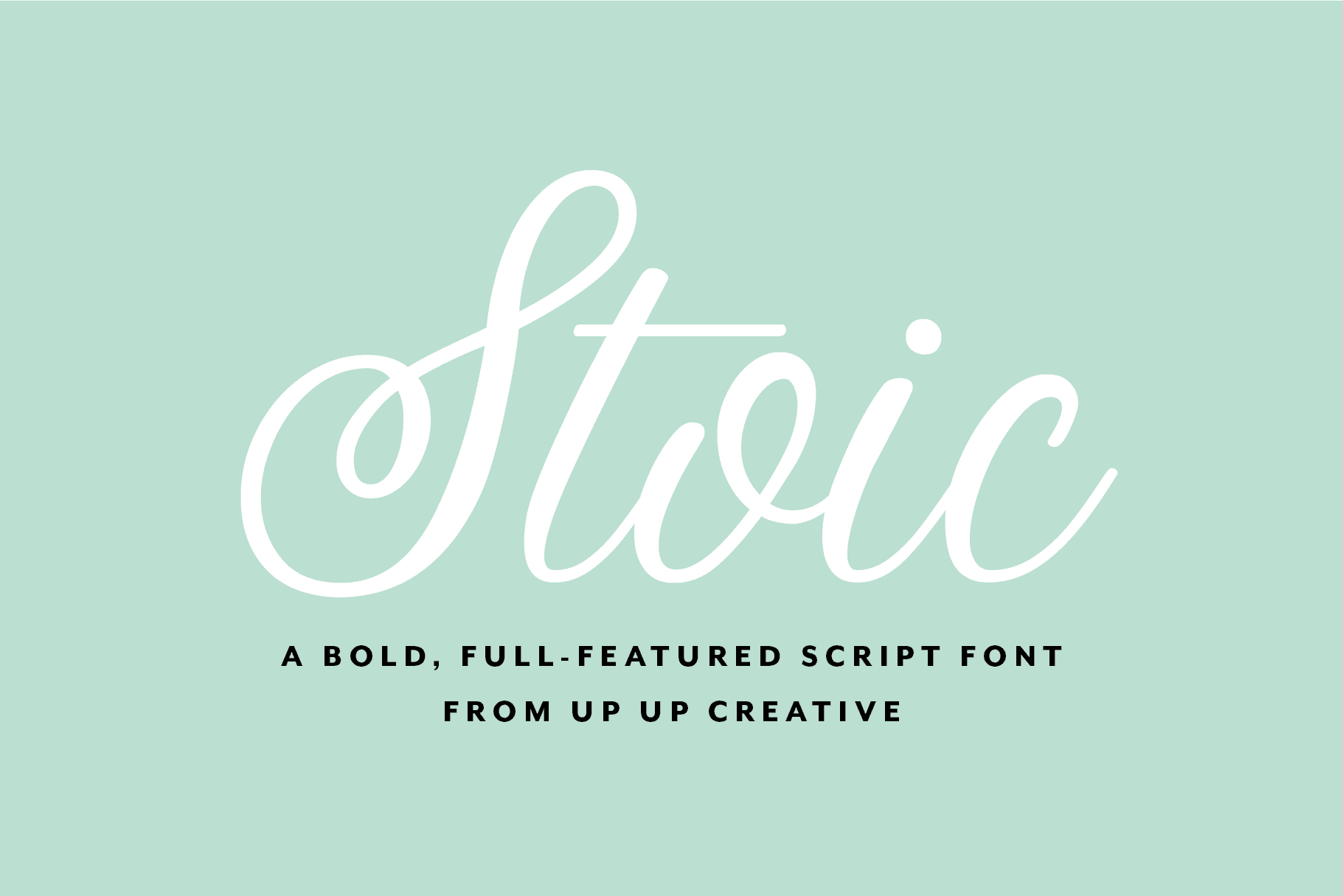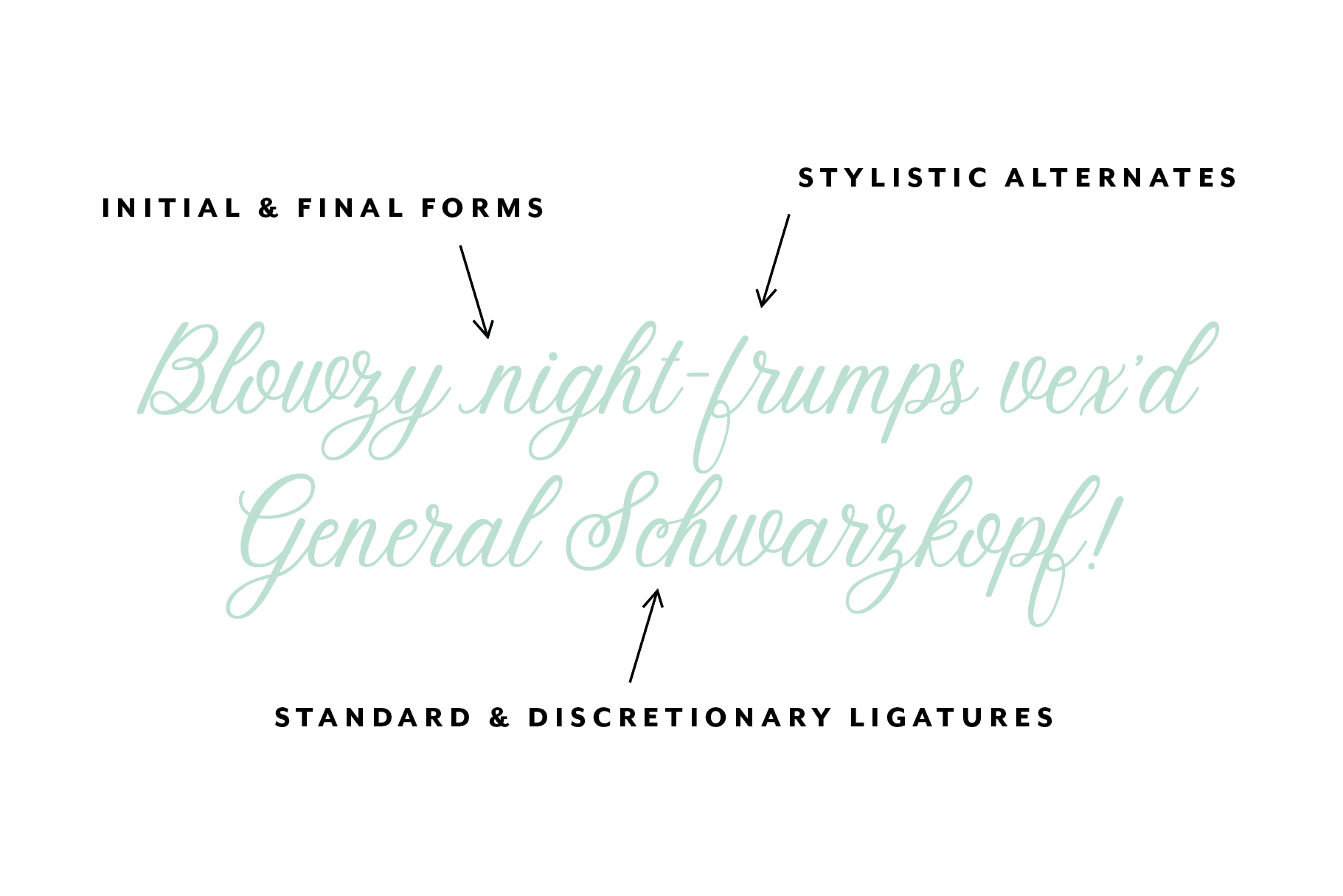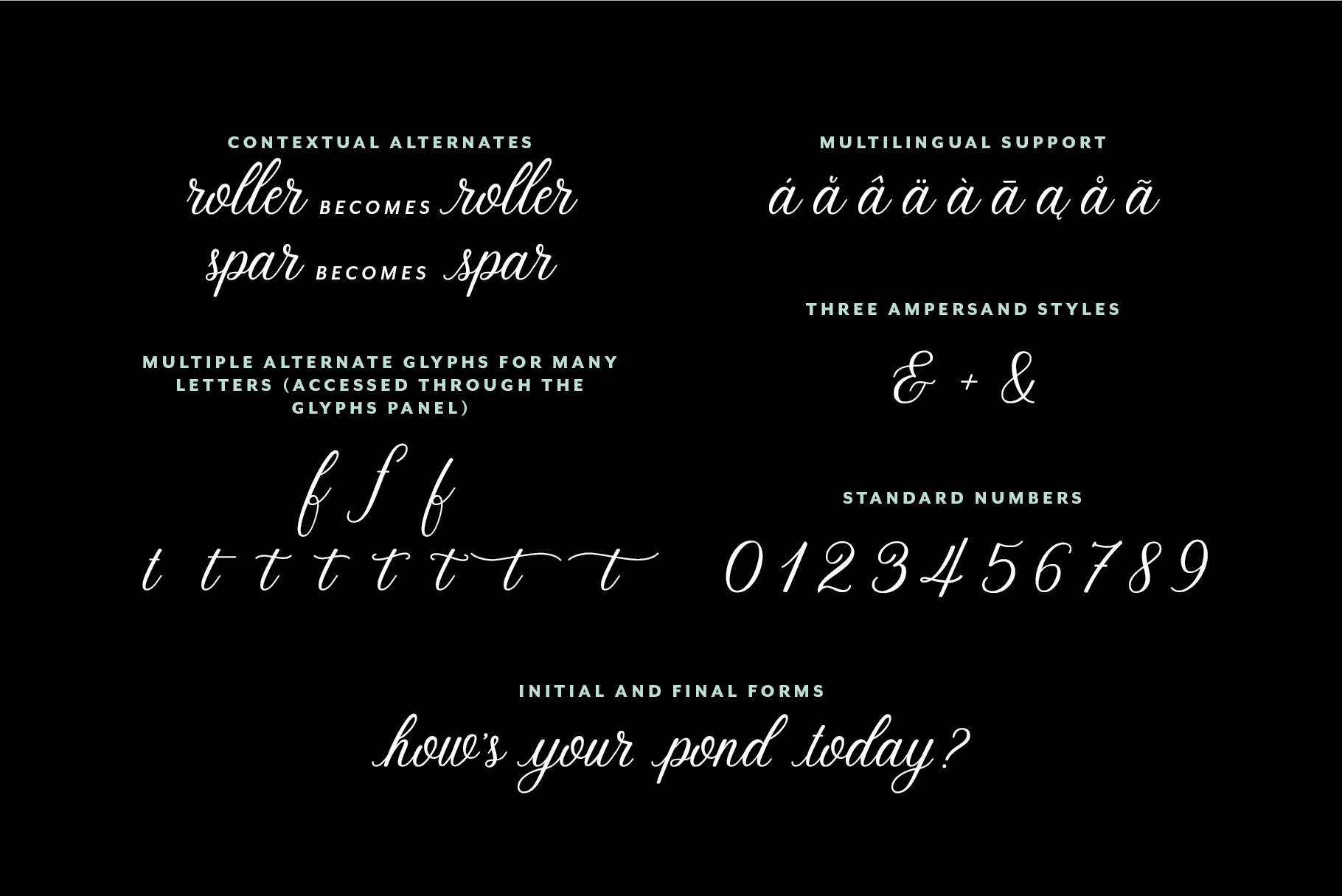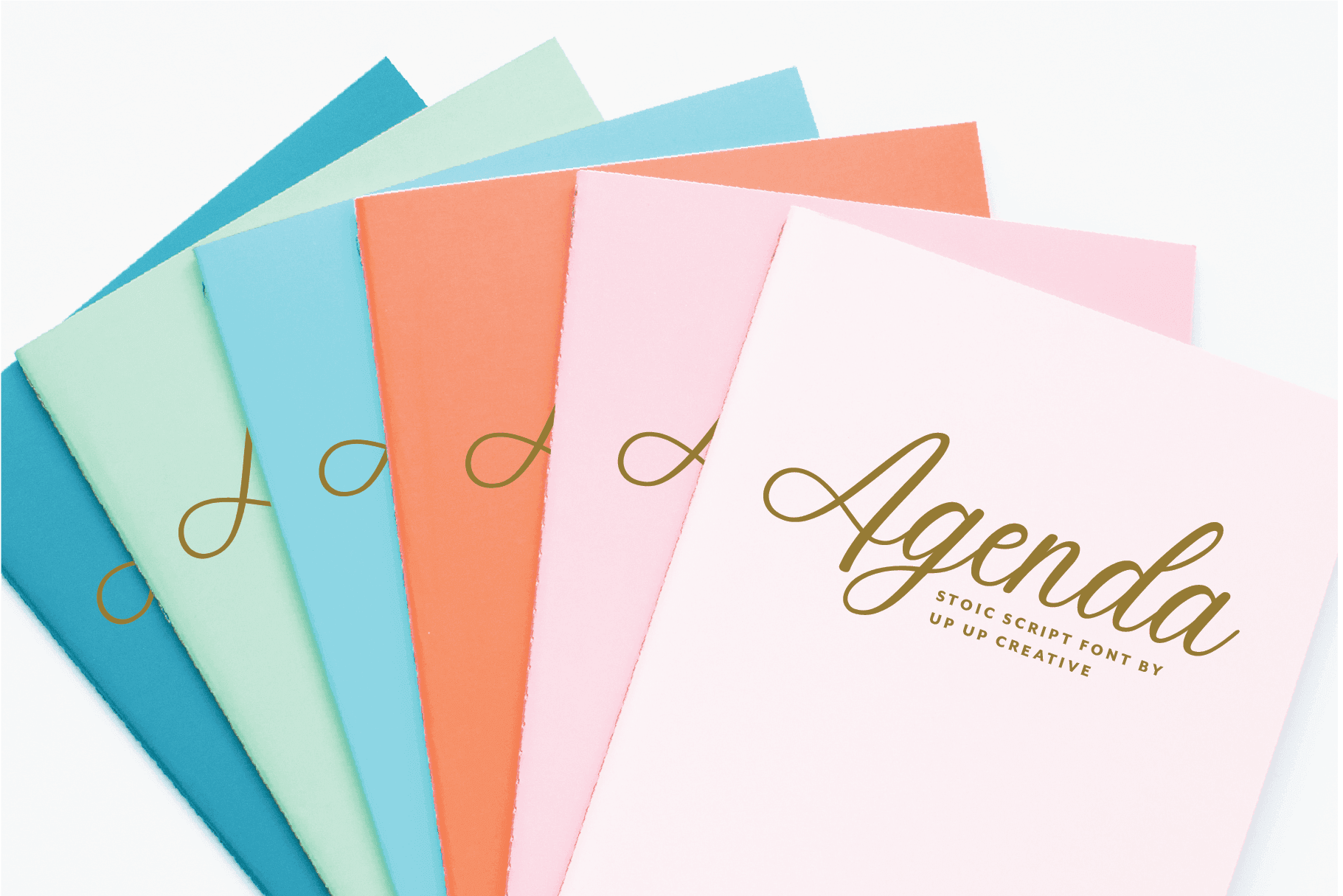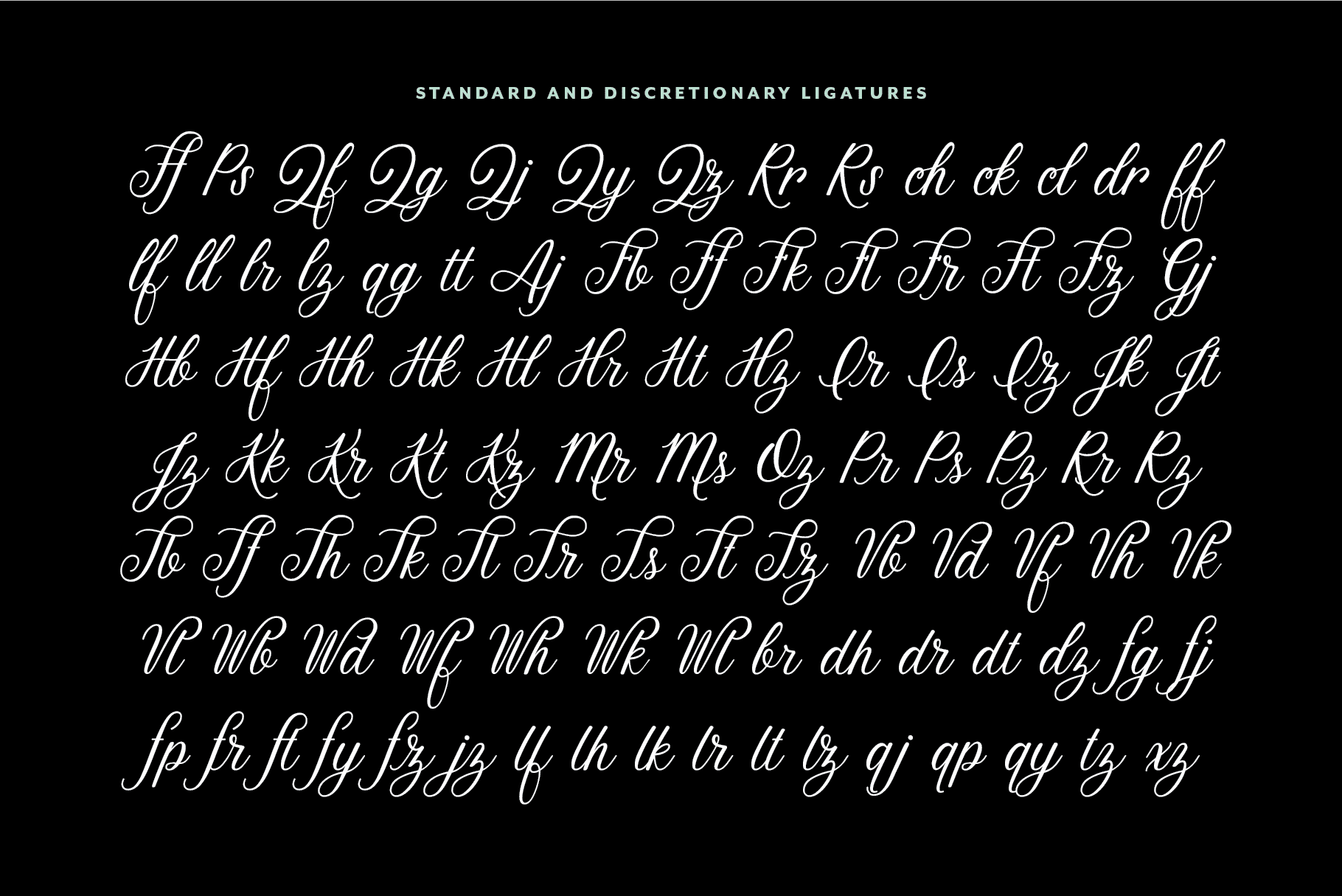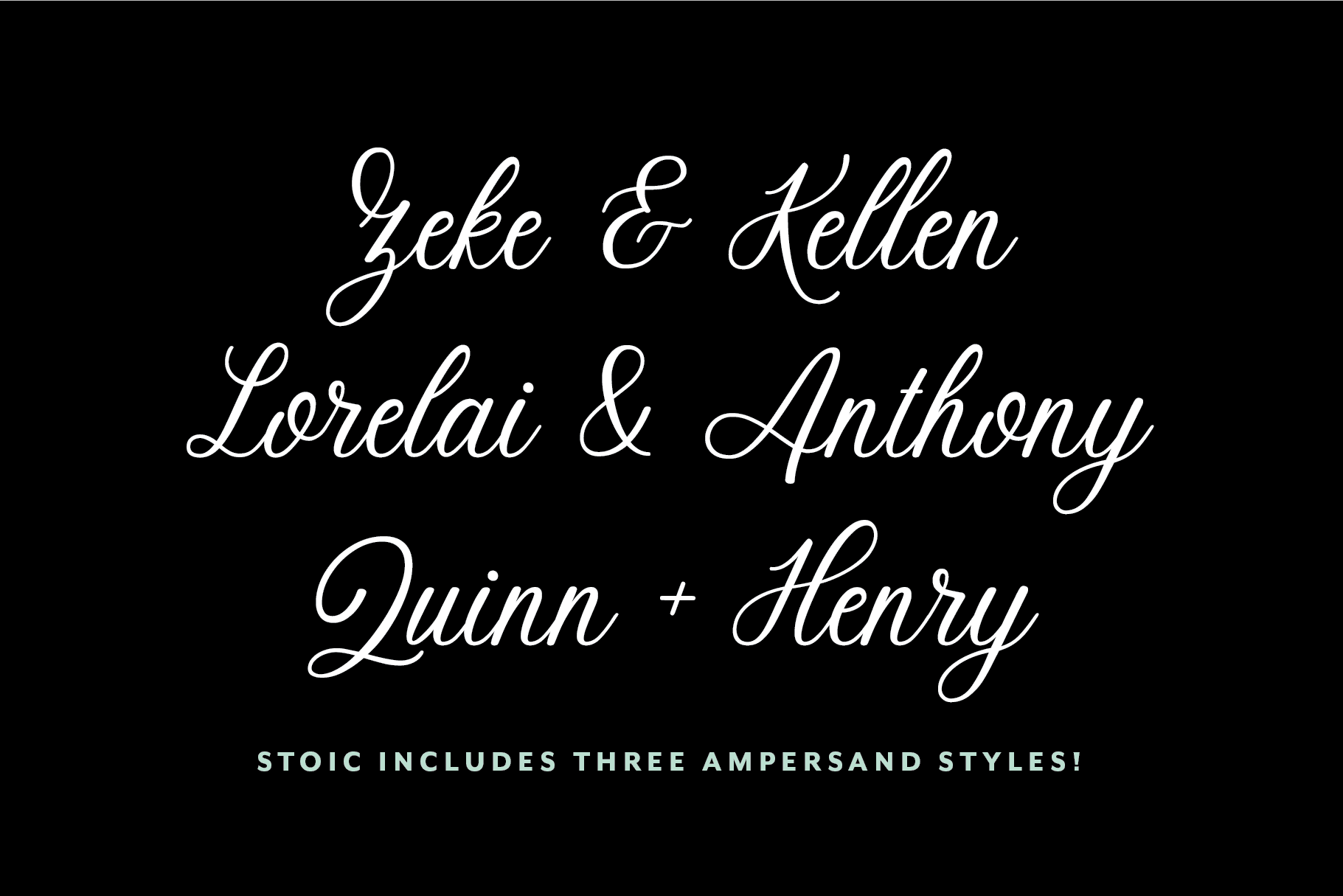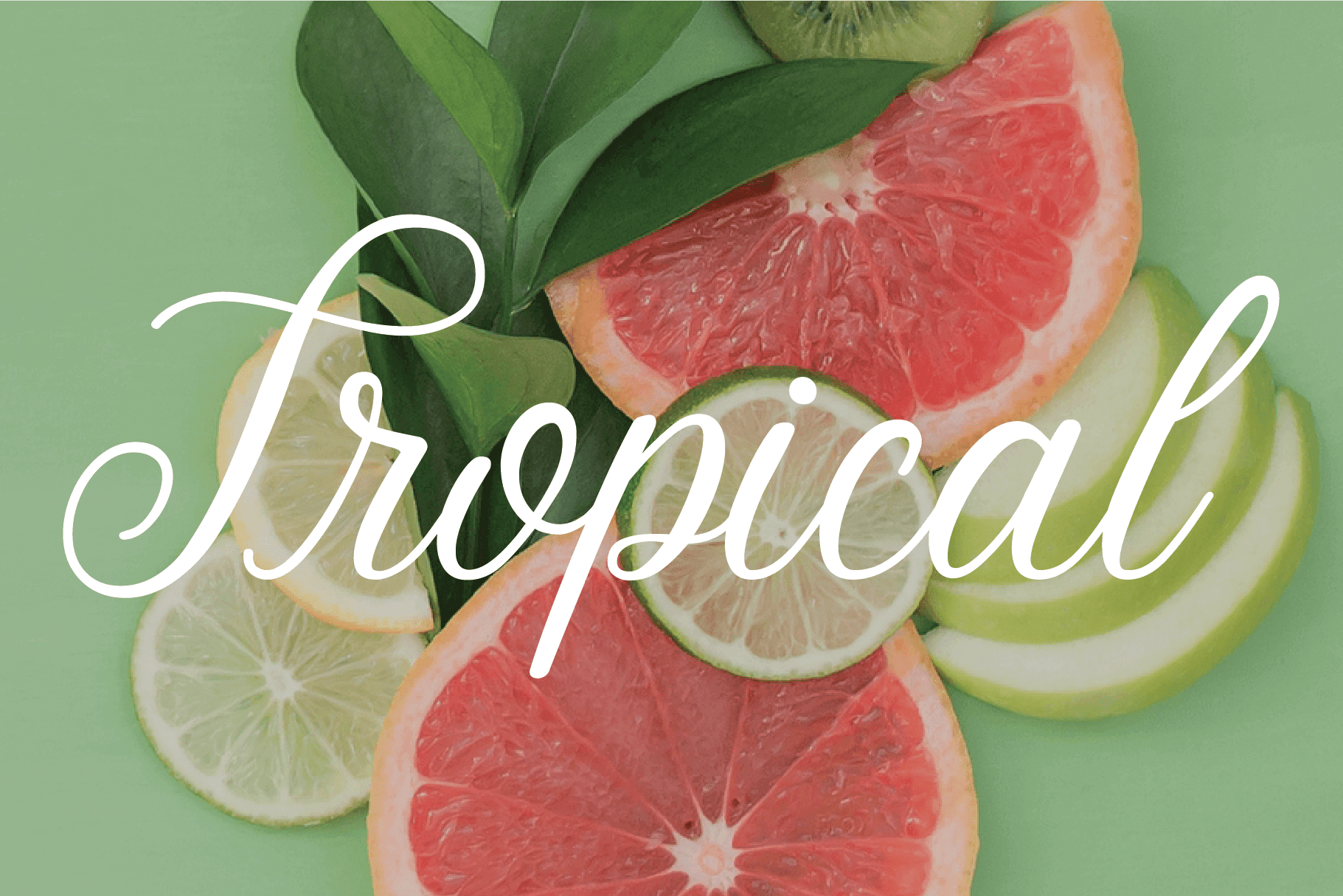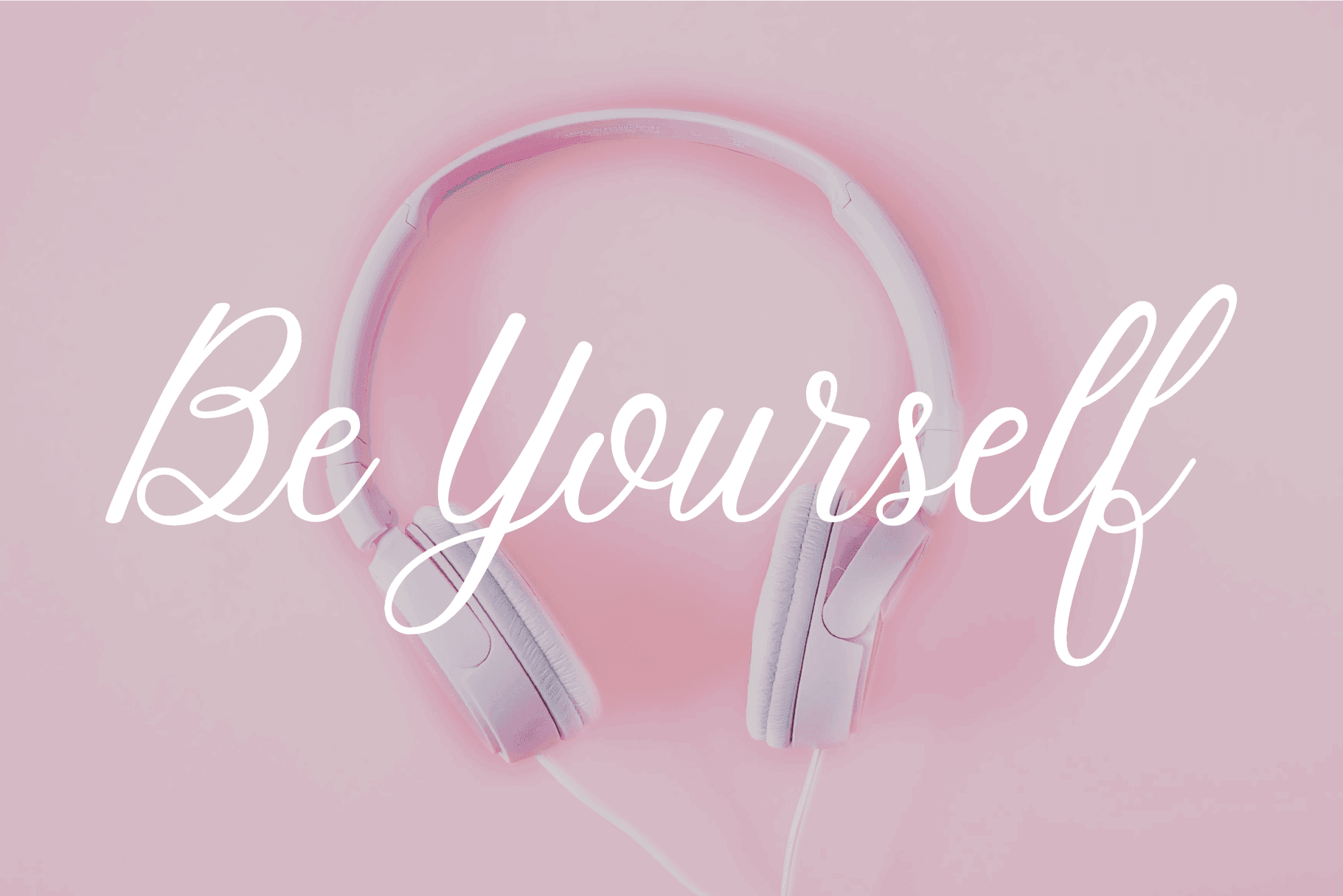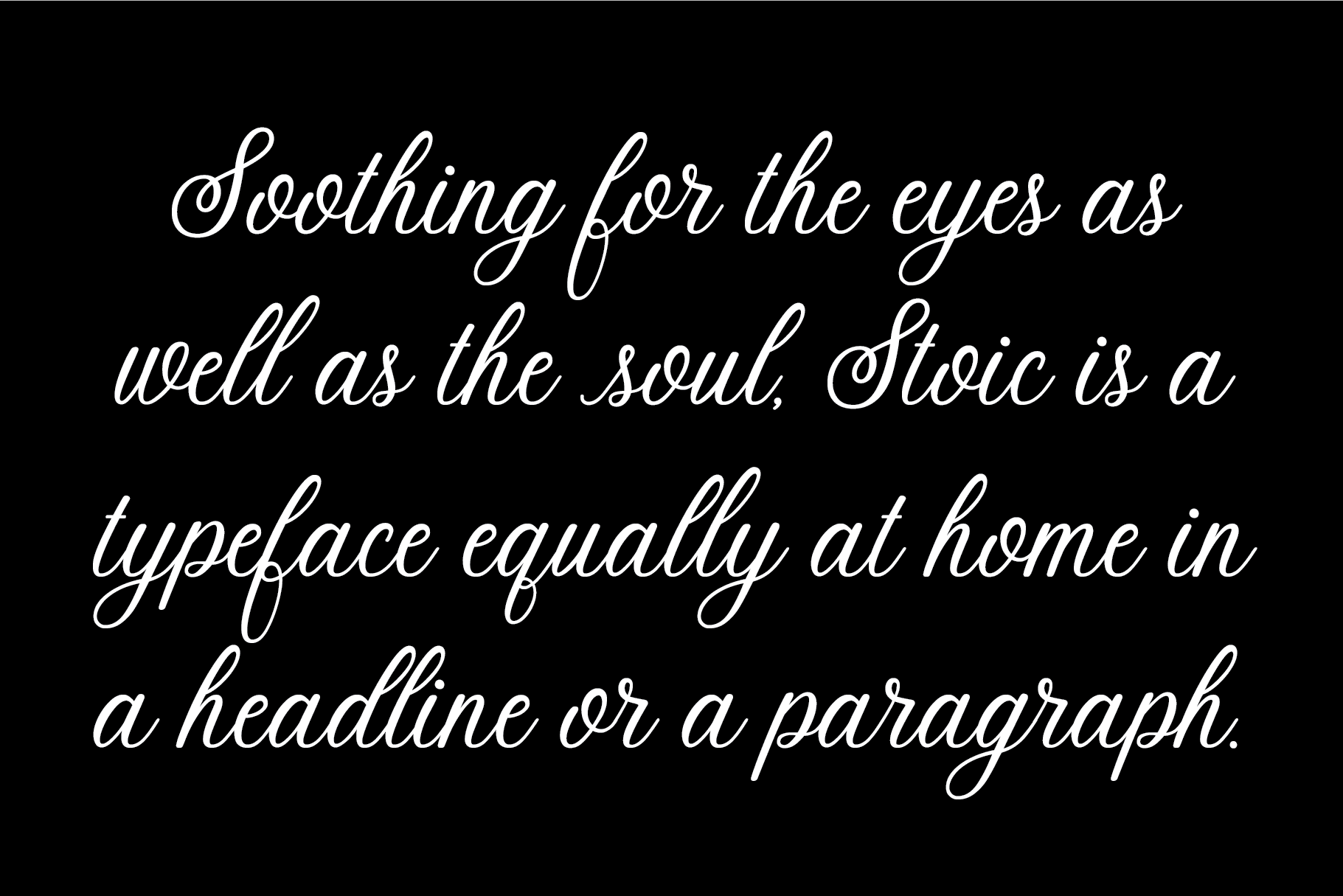
Stoic Script Font
Stoic is a bold, full-featured script font with tons of OpenType features. With its smooth connections and considerable charm, Stoic is perfect for logos, wedding invitations, stationery design, branding projects, photo overlays, editorial features, and more.
OpenType Features
- contextual alternates
- standard and discretionary ligatures
- initial and terminal forms
- localized forms (multi-language and multi-currency support)
- ordinals and superscripts
- stylistic alternates
- stylistic sets
Includes 101 ligatures
- Includes 546 glyphs
- 1 Style, 1 Weight